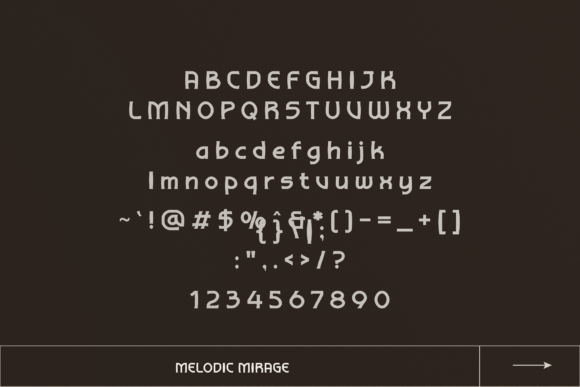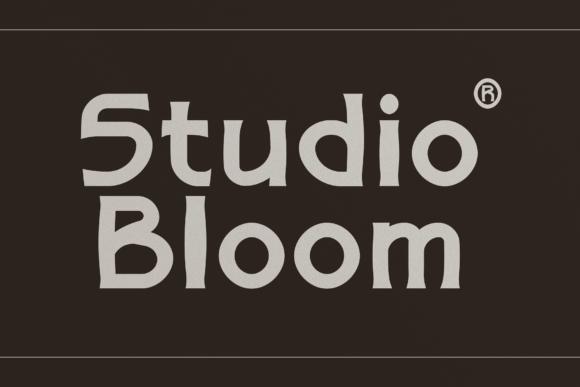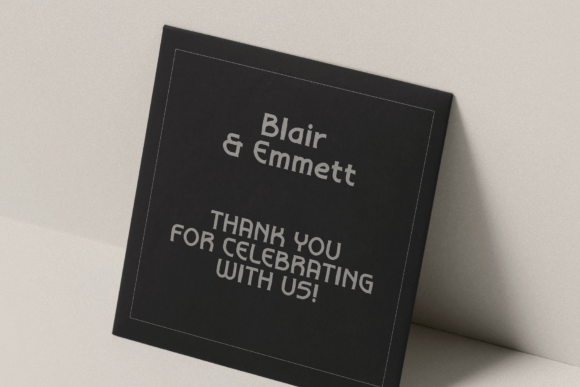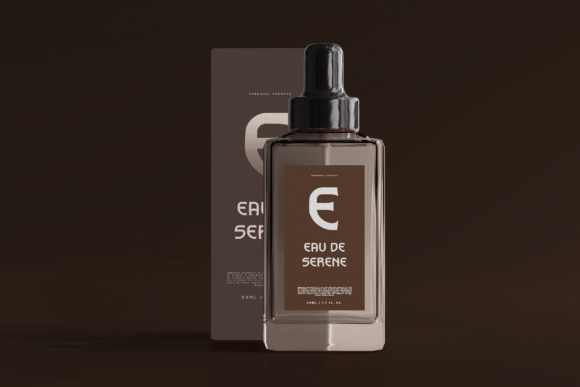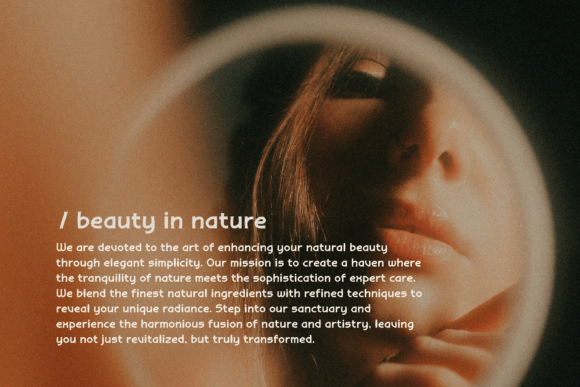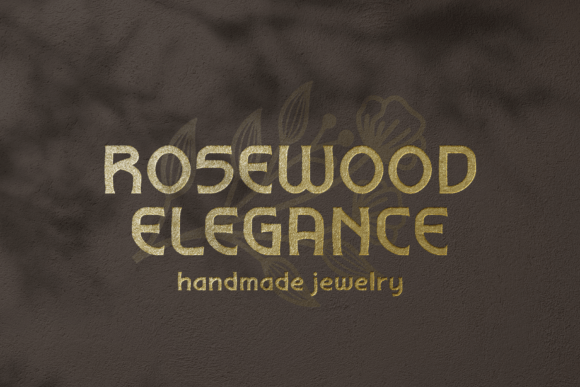
Introduction to Melodic Mirage Font Font
Fonts play a crucial role in design, and the Melodic Mirage Font font is a typeface that brings both character and versatility to any project. Whether you’re working on a branding project, a website, or a print design, the Melodic Mirage Font font offers a unique style that can elevate your work.
Introducing Melodic Mirage, a breathtaking revival of vintage typography that transports you to a bygone era of elegance and charm.
This enchanting typeface captures the essence of classic design, making it an ideal choice for signage, branding, and a plethora of creative projects Melodic Mirage is not just a typeface; itβs a bridge to the past, offering a blend of nostalgia and timeless beauty.
Key Features of Melodic Mirage Font Font
Why Choose Melodic Mirage Font Font?
The Melodic Mirage Font font is more than just a typeface β it’s a design tool that helps you communicate your message with style and clarity. Its unique character set and versatile design make it suitable for a wide range of applications, from elegant invitations to bold headlines.
With its carefully crafted letterforms and balanced proportions, the Melodic Mirage Font font ensures readability and visual appeal across all mediums.
What makes Melodic Mirage Font font special?
The Melodic Mirage Font font stands out with its unique design, exceptional readability, and versatility across various design applications.